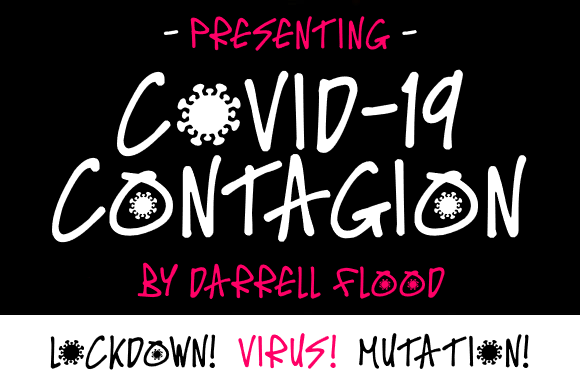
Covid-19 Contagion Font: The Perfect Typeface for Edgy Designs
In the world of typography, fonts play a crucial role in conveying the tone and aesthetic of a design. With the rise of COVID-19 and the increasing demand for designs that reflect the pandemic’s impact, the Covid-19 Contagion Font has emerged as a popular choice among designers and crafters. This expressive, loose, hand-drawn font with decorative elements is perfect for corona themes, virus outbreaks, punk settings, and general use as street art.
What is Covid-19 Contagion Font?
The Covid-19 Contagion Font is a unique typeface designed to evoke the feeling of a contagious outbreak. Its hand-drawn, loose style gives it a raw, edgy look that’s perfect for designs that require a bold statement. The font features decorative elements that add to its punk aesthetic, making it ideal for designs that need to stand out from the crowd.
Key Features of Covid-19 Contagion Font
- Expressive and Loose Style: The Covid-19 Contagion Font boasts an expressive, loose style that’s perfect for creating eye-catching designs.
- Hand-Drawn: The font’s hand-drawn nature gives it a unique, organic feel that’s perfect for street art and punk-inspired designs.
- Decorative Elements: The font features decorative elements that add to its edgy aesthetic, making it perfect for corona themes and virus outbreaks.
- Multipurpose: The Covid-19 Contagion Font is versatile and can be used for a wide range of design projects, from posters and flyers to social media graphics and merchandise.
Use Cases for Covid-19 Contagion Font
The Covid-19 Contagion Font is perfect for a variety of design projects, including:
- Corona Themes: Create eye-catching posters, flyers, and social media graphics that reflect the pandemic’s impact.
- Virus Outbreaks: Design informative materials, such as brochures and infographics, that convey critical information about virus outbreaks.
- Punk Settings: Use the font to create bold, edgy designs for punk-inspired projects, such as album covers, merchandise, and skateboard graphics.
- Street Art: Add a touch of rebelliousness to your street art designs with the Covid-19 Contagion Font.
Benefits of Using Covid-19 Contagion Font
Using the Covid-19 Contagion Font offers several benefits, including:
- Unique Aesthetic: The font’s distinctive style sets it apart from other typefaces, making your designs stand out.
- Flexibility: The Covid-19 Contagion Font can be used for a wide range of design projects, from print materials to digital graphics.
- Easy to Read: Despite its decorative nature, the font remains easy to read, making it perfect for designs that require clear communication.
Tips for Using Covid-19 Contagion Font
To get the most out of the Covid-19 Contagion Font, follow these tips:
- Use it Sparingly: The font’s bold style can be overwhelming if overused. Use it sparingly to create emphasis and visual interest.
- Pair it with Simple Fonts: Pair the Covid-19 Contagion Font with simpler fonts to create visual contrast and balance.
- Experiment with Colors: The font’s edgy style lends itself well to bold, bright colors. Experiment with different color schemes to create eye-catching designs.
The Covid-19 Contagion Font is a versatile, expressive typeface that’s perfect for designers and crafters looking to create bold, edgy designs. Its unique aesthetic, flexibility, and ease of use make it an excellent choice for a wide range of design projects. Whether you’re creating corona themes, virus outbreaks, punk settings, or street art, the Covid-19 Contagion Font is sure to make a statement.